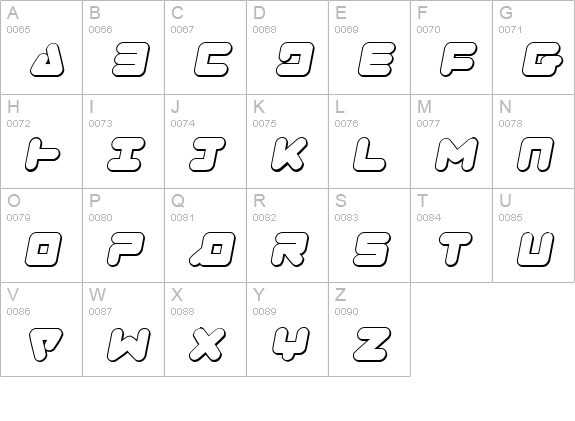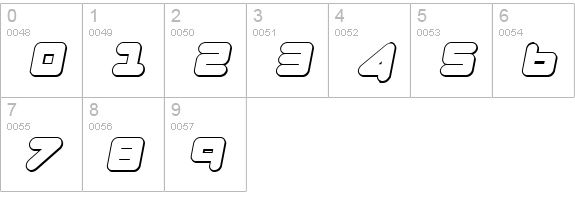
Zealot Outline Italic Font Details
Zealot Outline Italic is a distinctive, italic variant in the Zealot typeface family \xE2\x80\x94 well suited to design and typography projects.
Zealot Outline Italic font is a bold and dynamic typeface that exudes a sense of energy and passion. The sleek, angled lines of the italicized characters give this font a modern and edgy look, perfect for projects that require a touch of excitement and flair. Whether you're designing a poster, logo, or website, Zealot Outline Italic font will make your text stand out and grab attention. Best of all, Zealot Outline Italic font is completely free to download at FontsMarket.com. This means you can add this striking typeface to your design arsenal without any cost, making it a valuable resource for any creative project. Don't miss out on the opportunity to enhance your designs with the bold and stylish Zealot Outline Italic font – download it for free today!